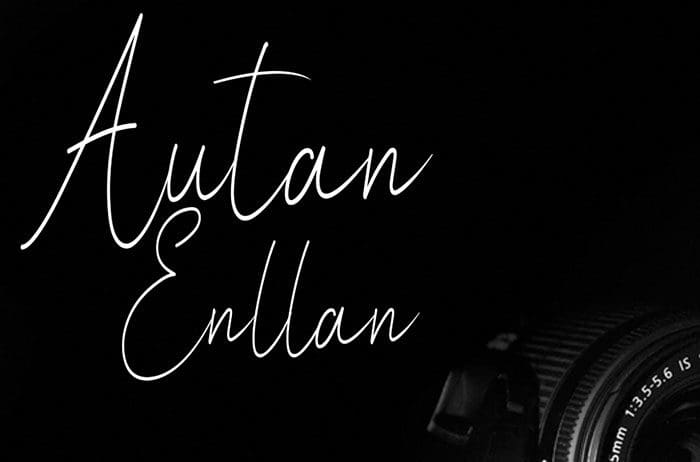
Autan Enllan Signature Font
Autan Enllan simplifies elegance into one truly outstanding signature font. It maintains its classy calligraphic influences while feeling contemporary and fresh. This versatility will appeal to a wide range of crafty ideas, from letterheads and titles, to stationery. Designed this font by Andika Studio. You can also search more freeĀ Signature Fonts. Thanks.